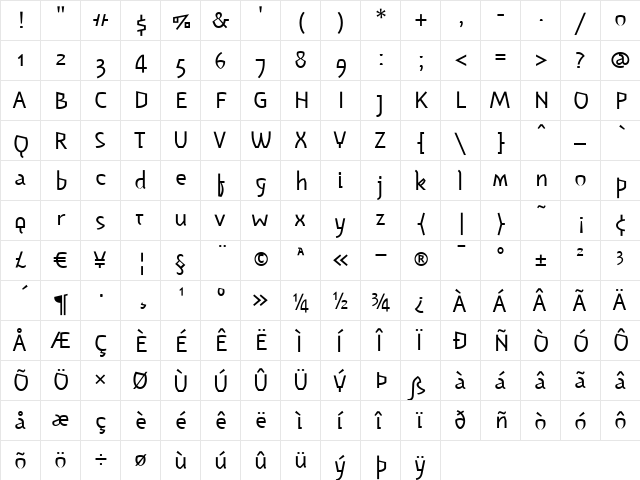
Reality Regular Font Preview
Reality Regular
Reality Regular Font Details
| Foundry | Reality by Claudio Piccinini \ . Published by Thirstype |
Design Context for Reality Typeface
Reality is a composed and adaptable typeface that performs quietly and consistently across a wide range of design contexts.